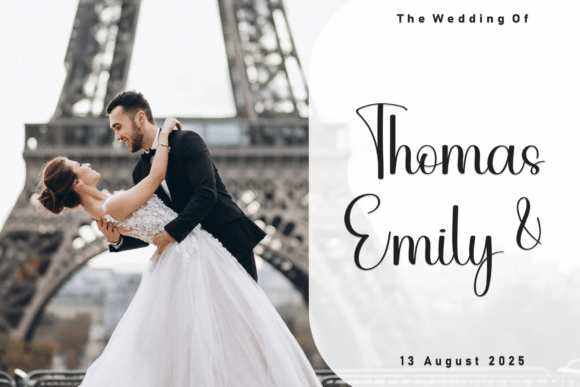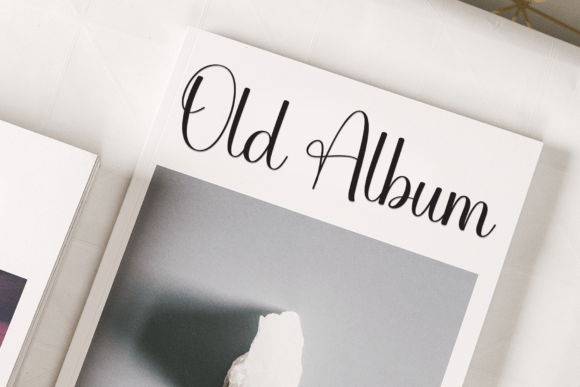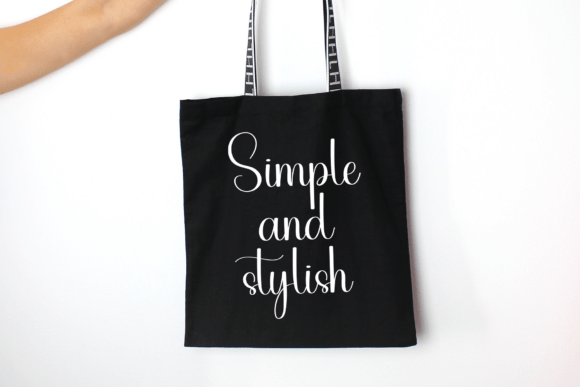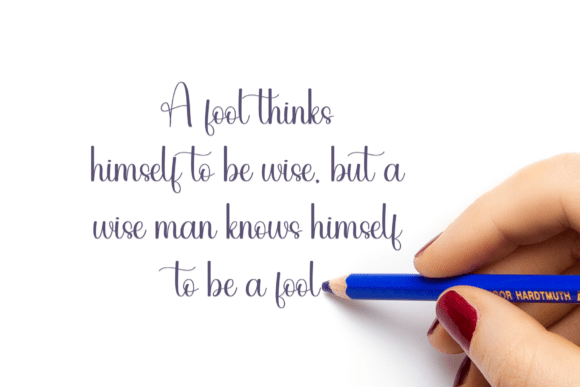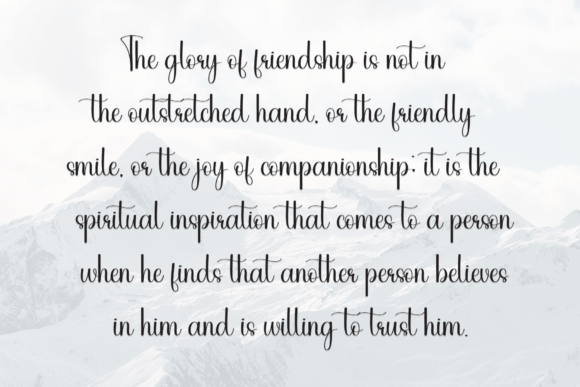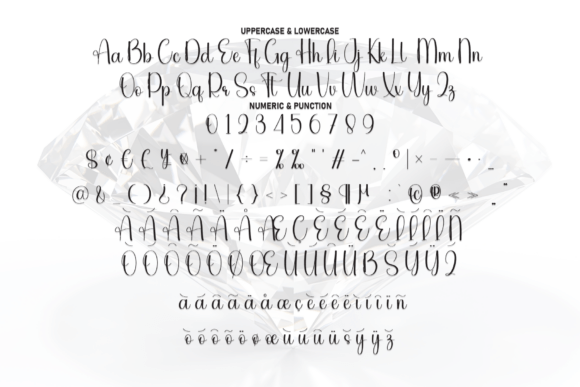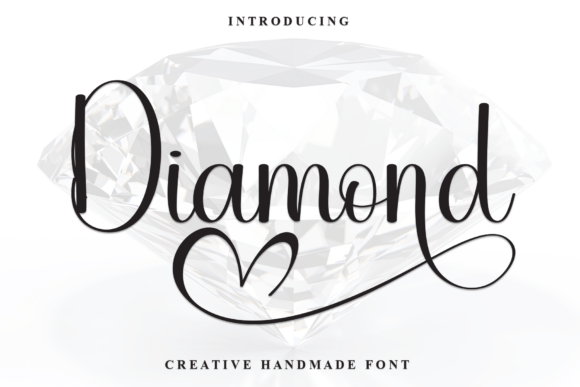
Diamond Font: Elevate Your Designs with Elegance and Sophistication
In the world of typography, few fonts manage to strike a balance between elegance and modernity as effectively as the Diamond Font. This stylish script font is designed to bring a touch of sophistication and contemporary charm to any design project. Whether you’re a seasoned designer or a crafty DIY enthusiast, Diamond Font is an excellent choice for adding a refined and polished look to your work.
The Beauty of Diamond Font
Diamond Font boasts graceful strokes, fluid curves, and meticulously crafted letterforms that evoke the beauty of hand-drawn calligraphy with a modern twist. The font’s natural flow and polished details make it an ideal choice for a wide range of design applications, from logos and invitations to packaging and social media graphics.
Key Features of Diamond Font
- Elegant Script Style: Diamond Font features a stylish script style that exudes elegance and sophistication.
- Fluid Curves and Strokes: The font’s fluid curves and strokes give it a natural, hand-drawn feel that’s perfect for designs that require a personal touch.
- Carefully Crafted Letterforms: Each letterform in Diamond Font has been meticulously crafted to ensure that the font looks polished and refined.
- Versatility: Diamond Font is versatile enough to be used in a wide range of design applications, from logos and branding to invitations and packaging.
Uses for Diamond Font
Diamond Font is an incredibly versatile font that can be used in a variety of design projects. Here are some ideas to get you started:
- Logos and Branding: Use Diamond Font to create a sophisticated and elegant logo that reflects your brand’s personality.
- Invitations and Stationery: Add a touch of refinement to your invitations, greeting cards, and stationery with Diamond Font.
- Packaging Design: Use Diamond Font to create eye-catching packaging that stands out on store shelves.
- Social Media Graphics: Elevate your social media graphics with Diamond Font’s elegant and modern style.
Why Choose Diamond Font?
With so many fonts available, why choose Diamond Font? Here are just a few reasons why designers and crafters love this stylish script font:
- Unique and Eye-Catching: Diamond Font is a unique and eye-catching font that will help your designs stand out from the crowd.
- Elegant and Sophisticated: The font’s elegant and sophisticated style makes it perfect for designs that require a refined and polished look.
- Easy to Read: Despite its elegant style, Diamond Font is easy to read, making it perfect for designs that require a clear and concise message.
Tips for Using Diamond Font
Here are a few tips for getting the most out of Diamond Font:
- Use it Sparingly: Diamond Font is a bold and elegant font, so use it sparingly to avoid overwhelming your design.
- Experiment with Colors: Try pairing Diamond Font with different colors to create a unique and eye-catching design.
- Mix and Match: Don’t be afraid to mix and match Diamond Font with other fonts to create a unique and visually appealing design.
Diamond Font is a stylish script font that offers the perfect blend of elegance and modernity. With its fluid curves, graceful strokes, and carefully crafted letterforms, it’s an excellent choice for designers and crafters who want to add a refined and sophisticated touch to their work. Whether you’re creating logos, invitations, packaging, or social media graphics, Diamond Font is sure to impress.